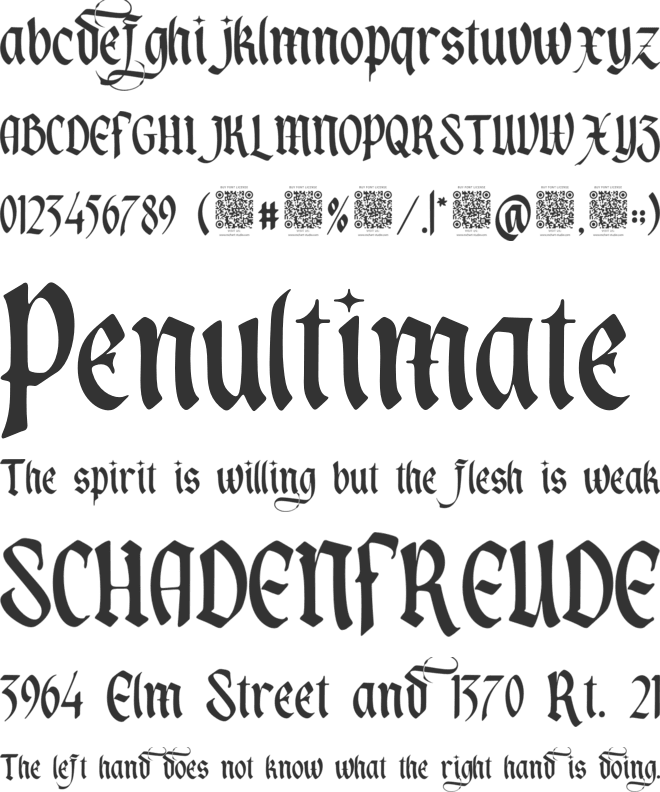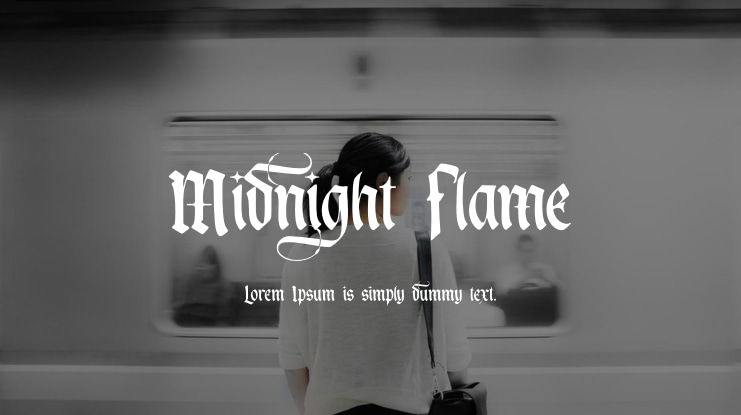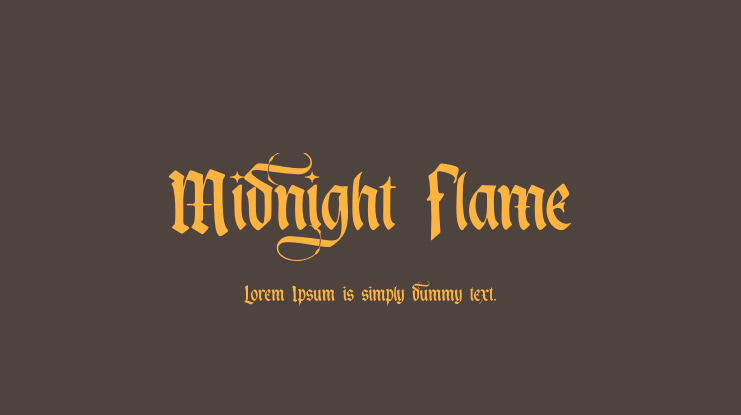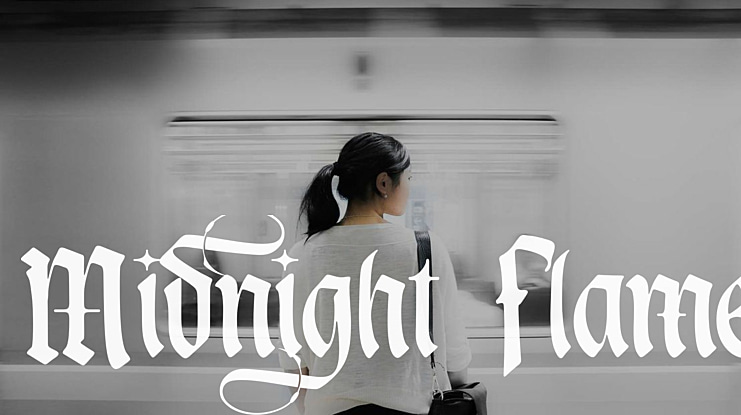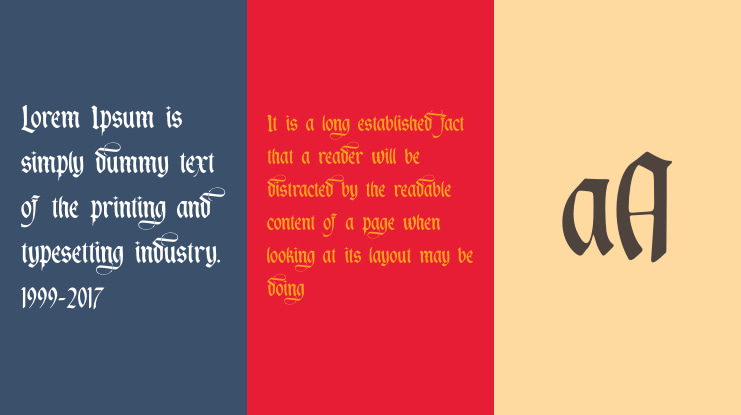
Midnight Flame Font
Introducing Midnight Flame, a powerful Blackletter/Gothic font with an array of amazing features. This font showcases the essence of medieval calligraphy with its bold and dramatic letterforms, evoking a sense of mystique and elegance.
With Midnight Flame, you’ll have access to 7 stylistic alternates, allowing you to experiment and create unique and captivating designs. The ligature feature further enhances the flow and continuity of the text, adding an extra level of sophistication.
Additionally, Midnight Flame is designed to support multiple languages, making it versatile and inclusive for various projects. Whether you’re working on branding, logo design, apparel, or editorial pieces, this font will make a striking impact.